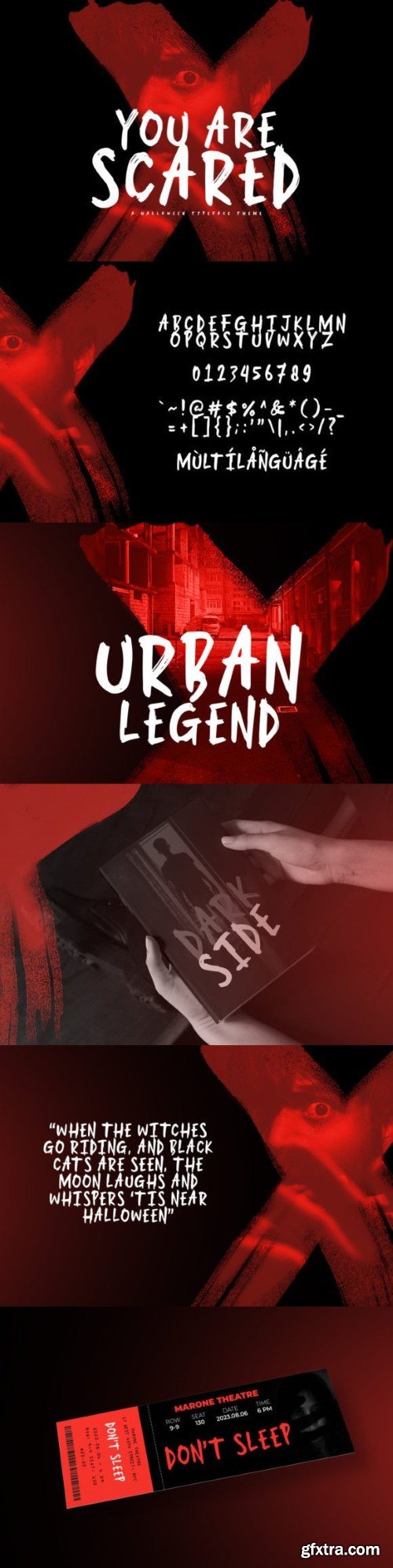
你害怕的字体
The You Are Scared is a unique and attractive display font. This font is suitable for designs with horror and Halloween concepts. It can easily be matched to an incredibly large set of projects, so add it to your creative ideas and notice how it makes them stand out!